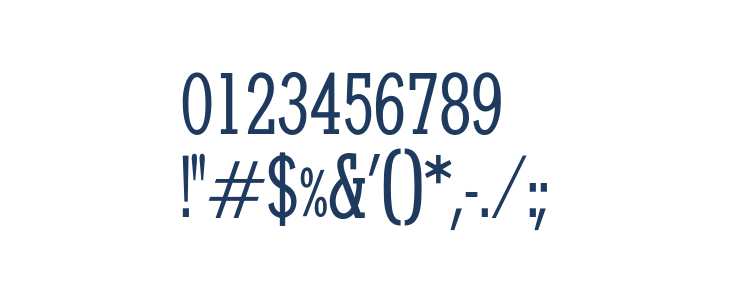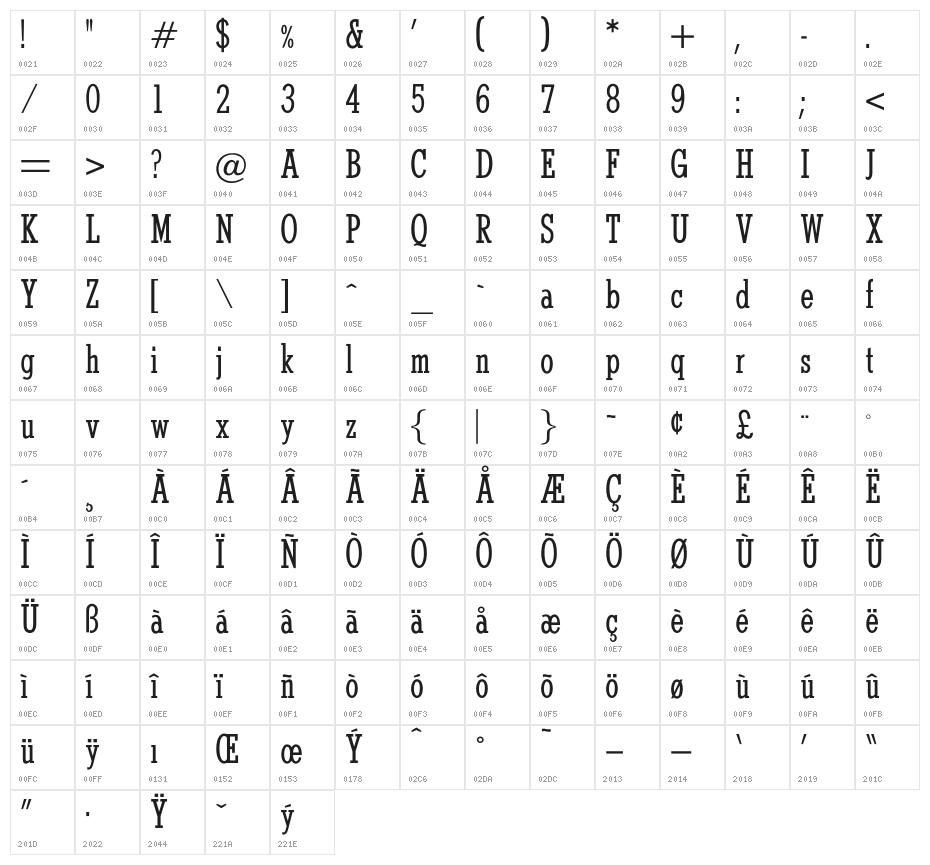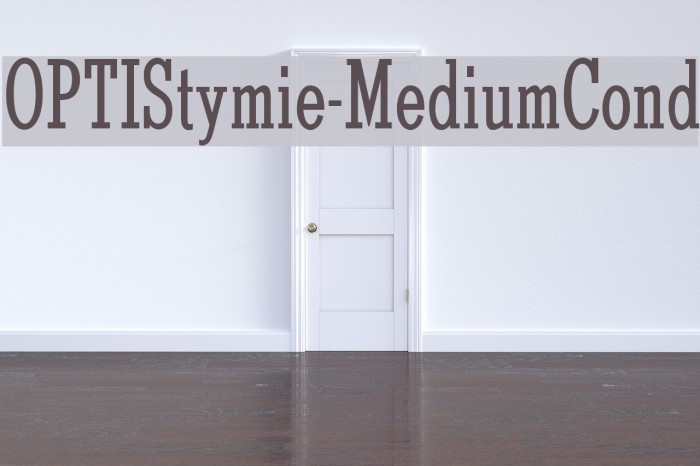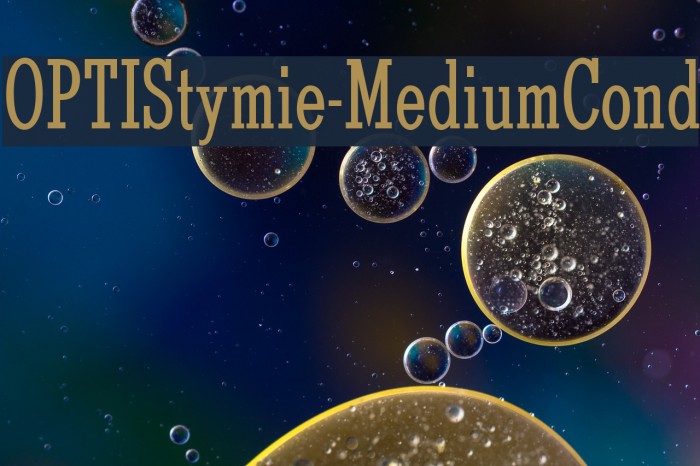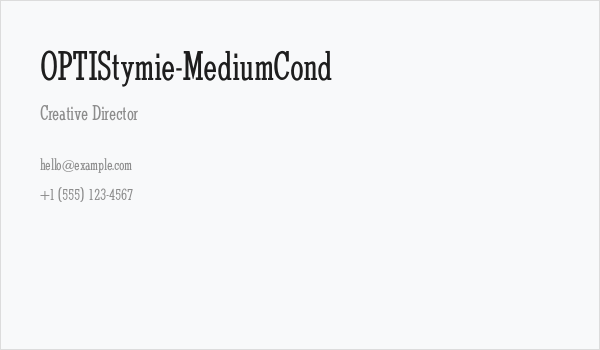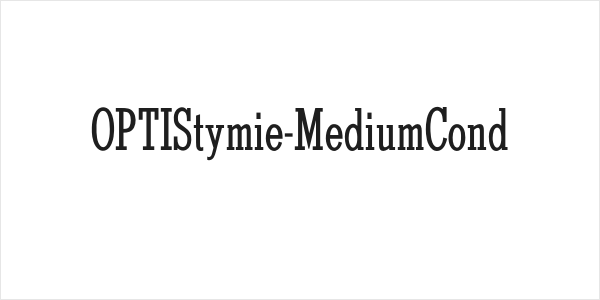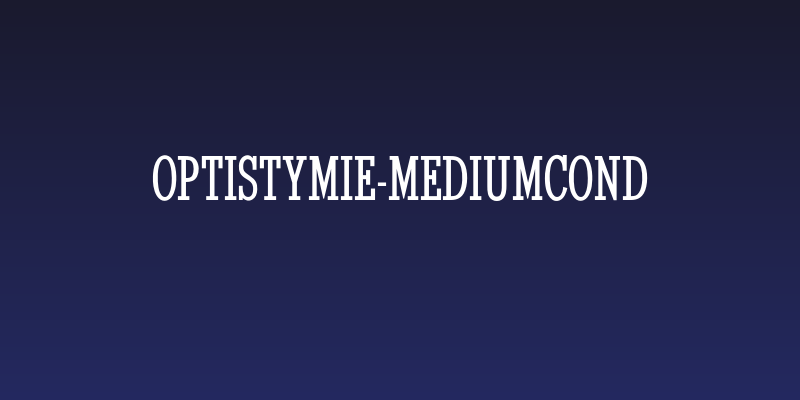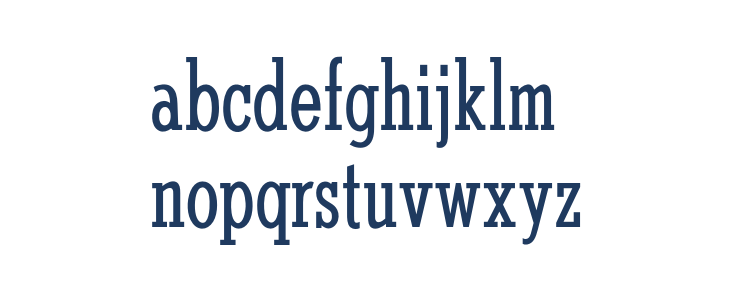
OPTIStymie-MediumCond Font
OPTIStymie-MediumCond Description
This font exhibits a classic serif style with a medium weight, offering a balanced and readable appearance. The characters are designed with a moderate contrast between thick and thin strokes, enhancing legibility while maintaining a traditional aesthetic. The serifs are pronounced, providing a sense of formality and structure. The overall spacing between characters is normal, ensuring clarity and ease of reading. This font is versatile, suitable for both digital and print media, and can be effectively used in various design contexts.
| Proposed Projects | Ideal for editorial design, book covers, formal invitations, and branding materials that require a traditional and authoritative look. |